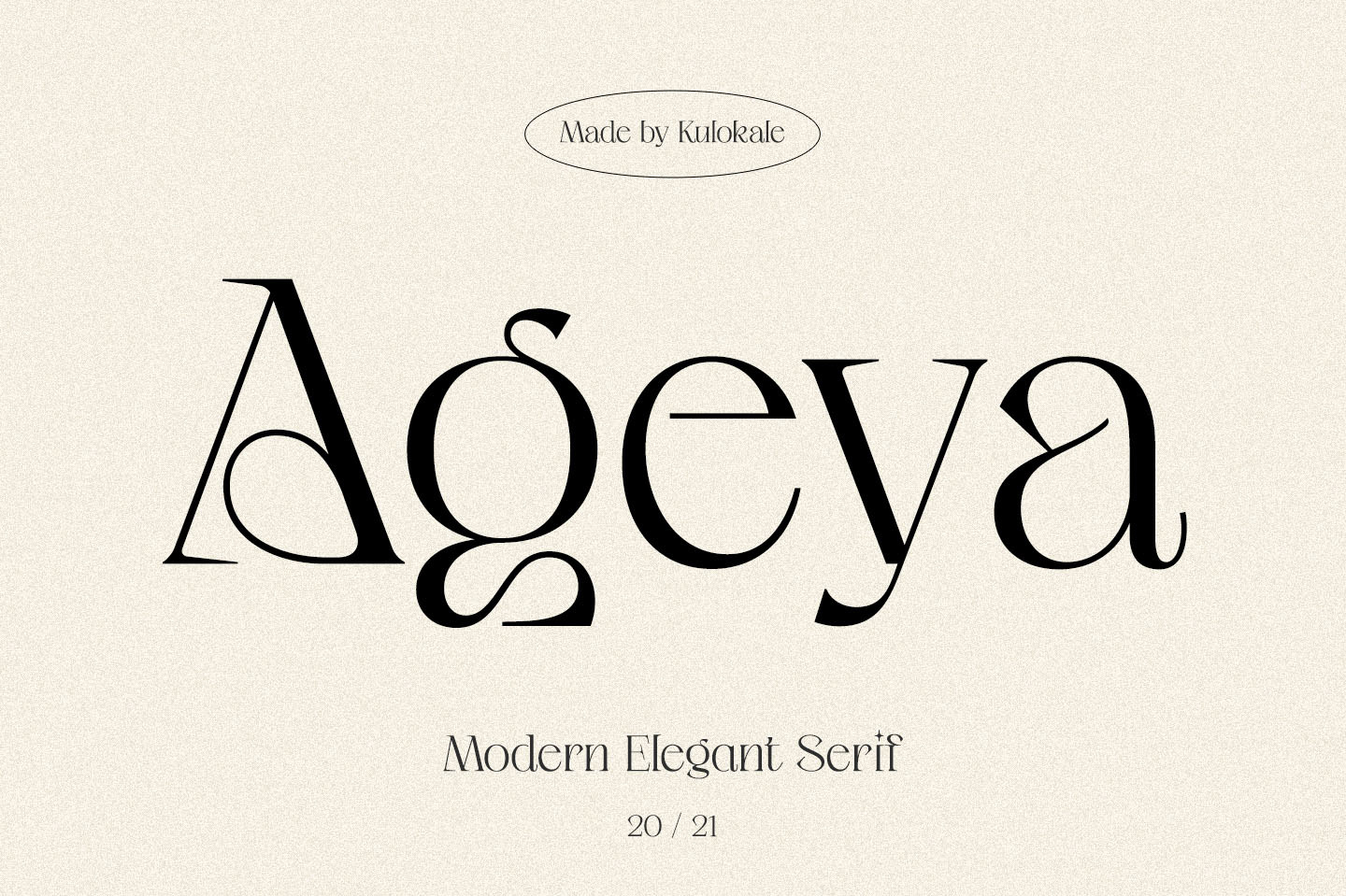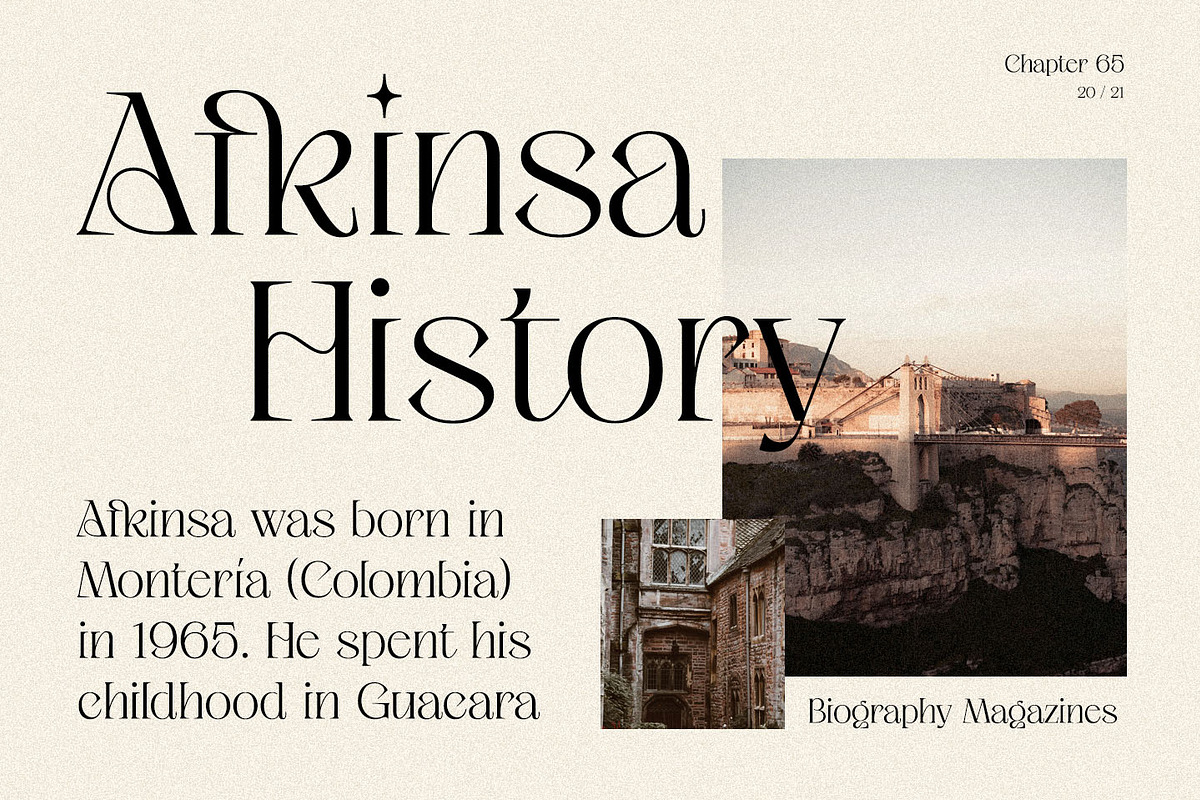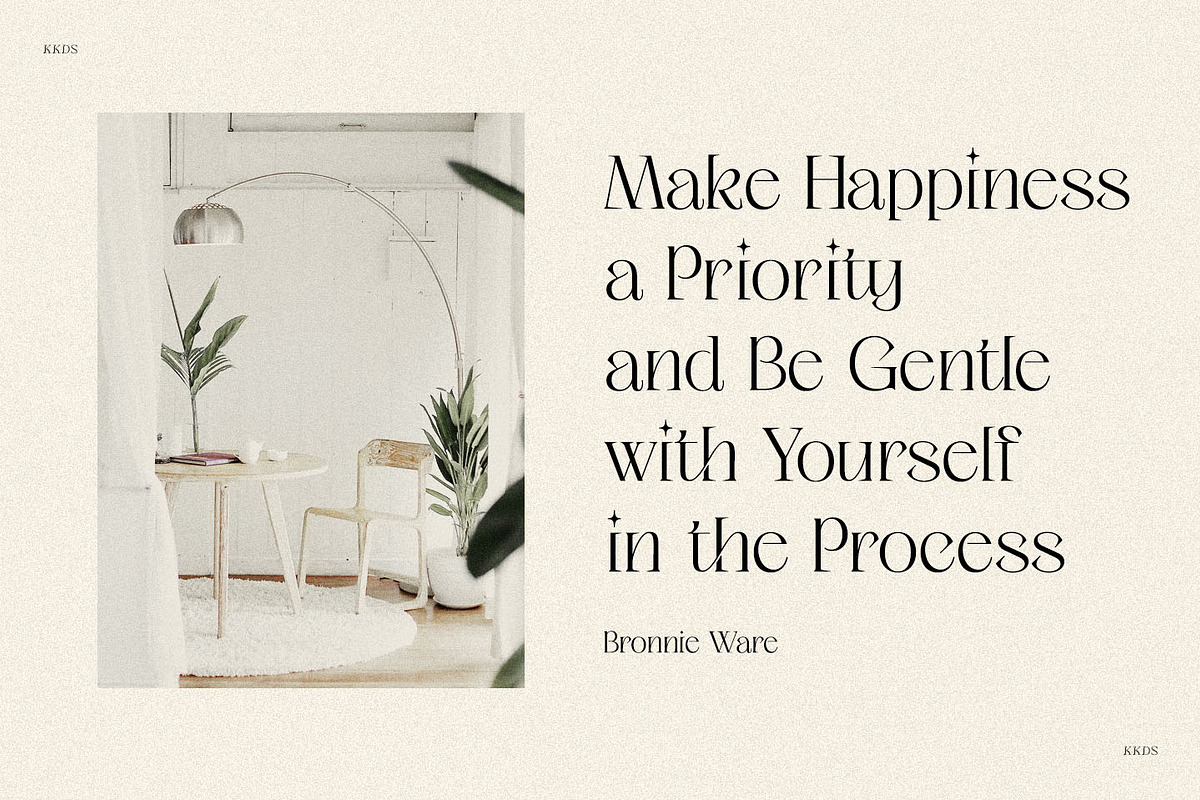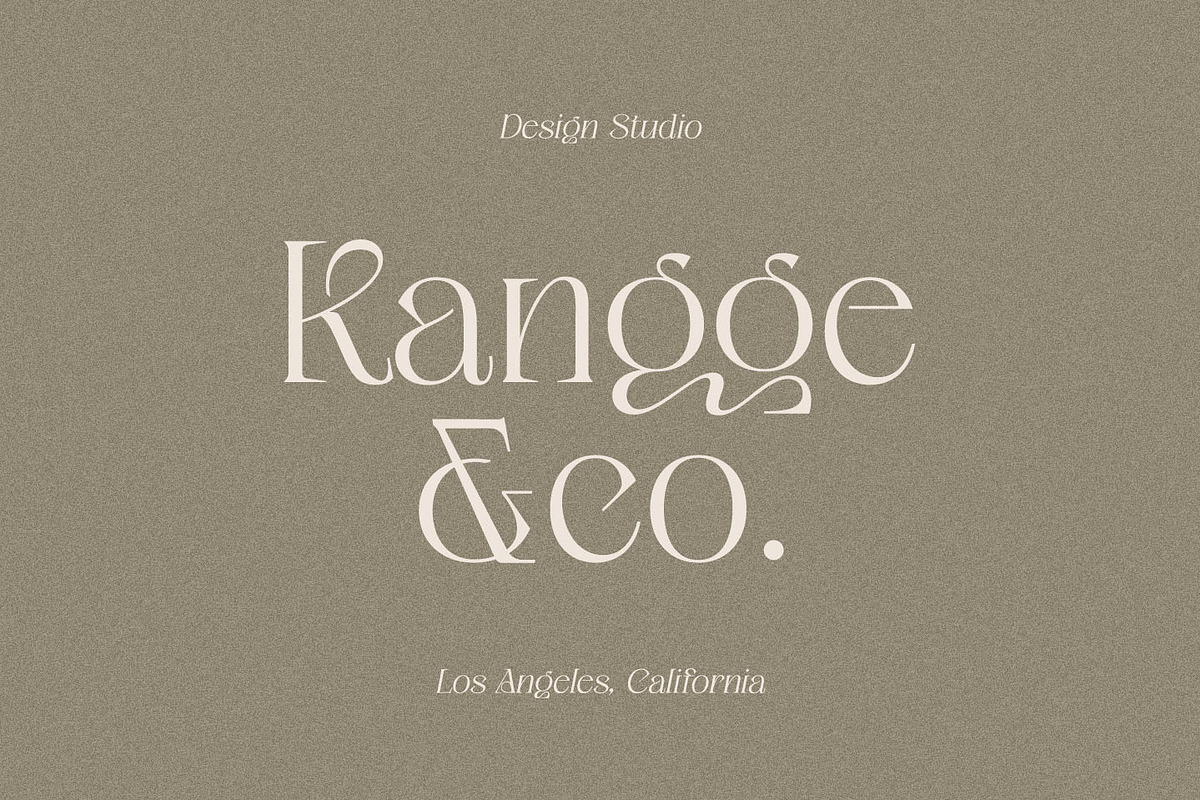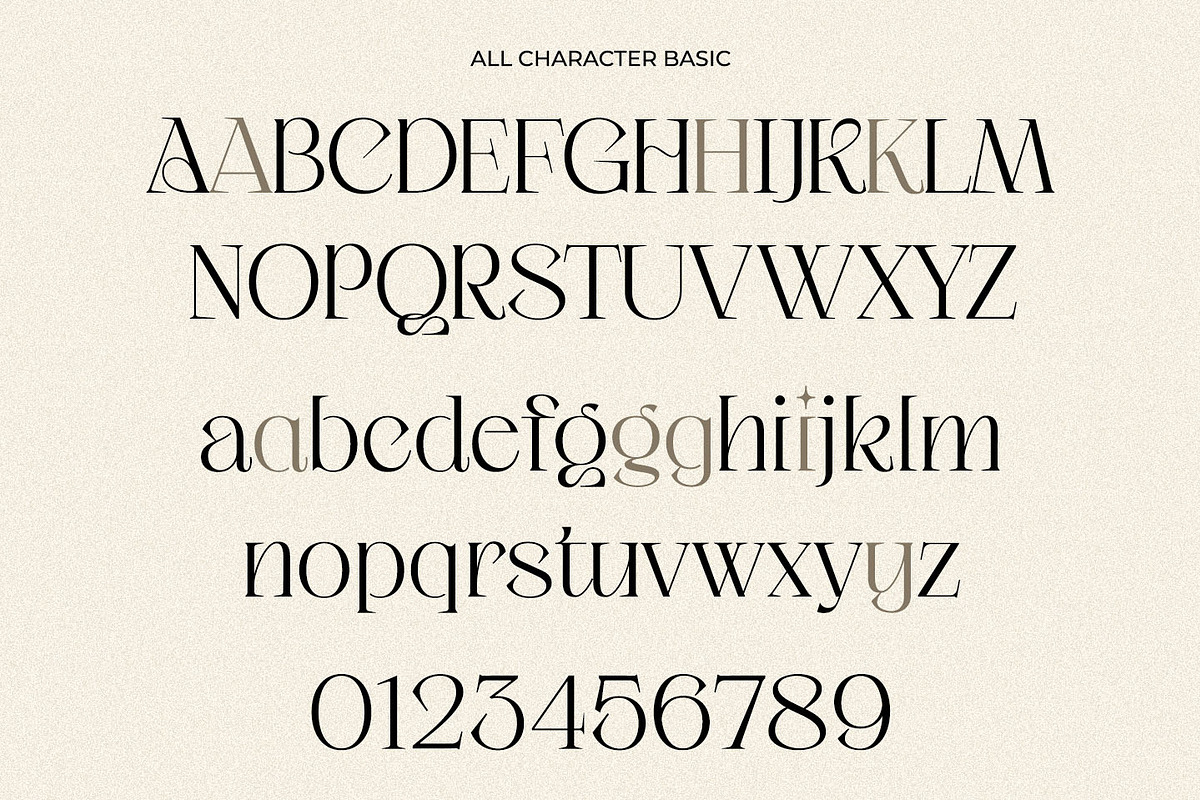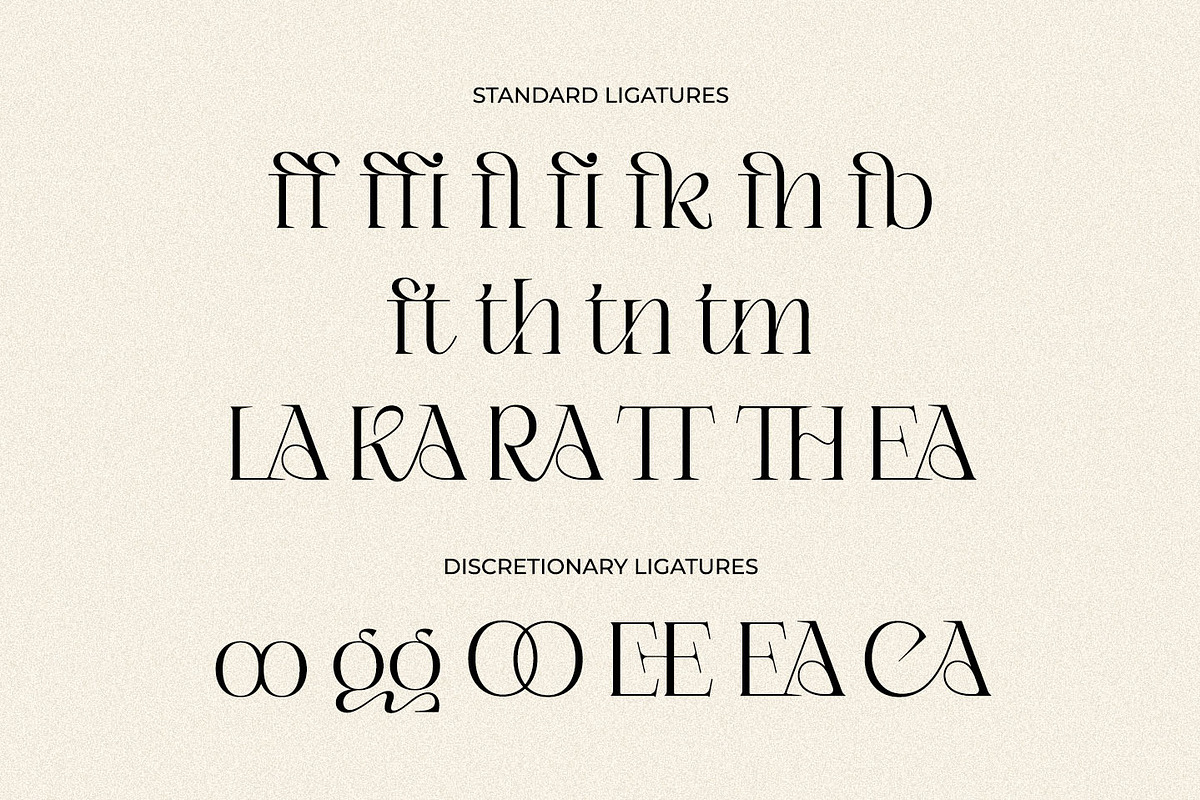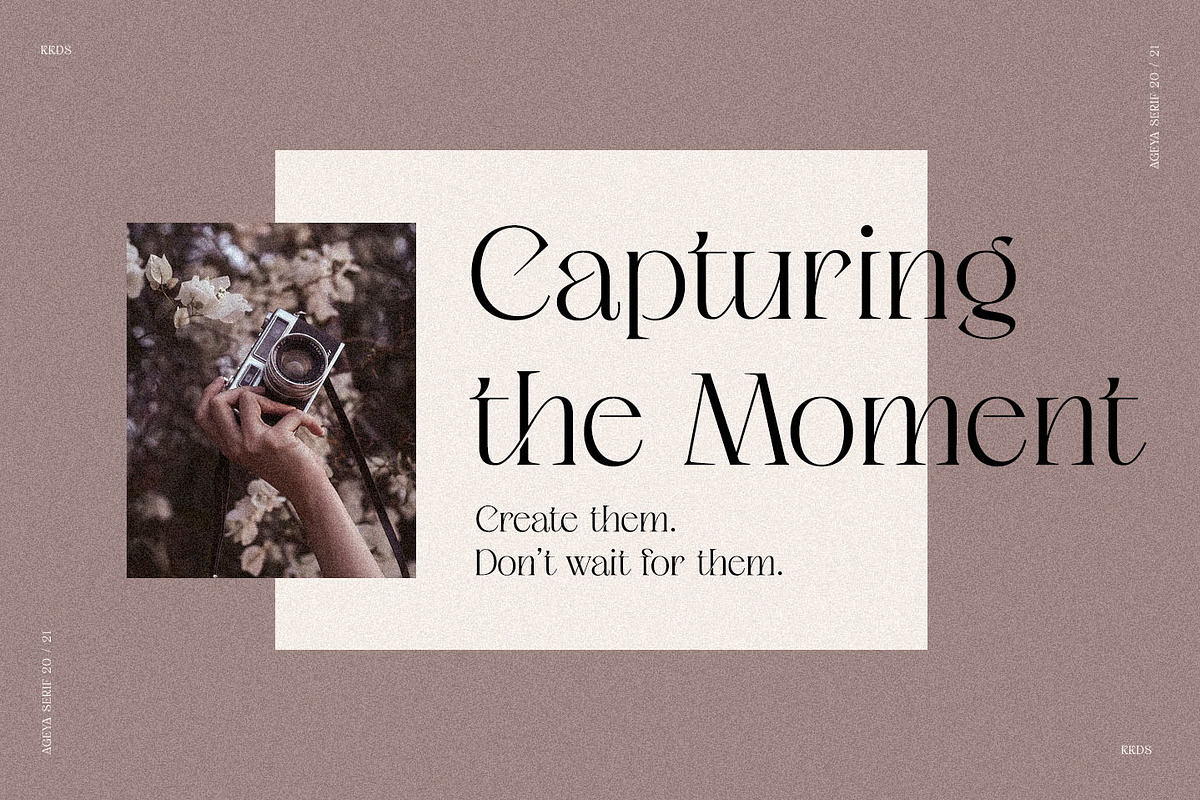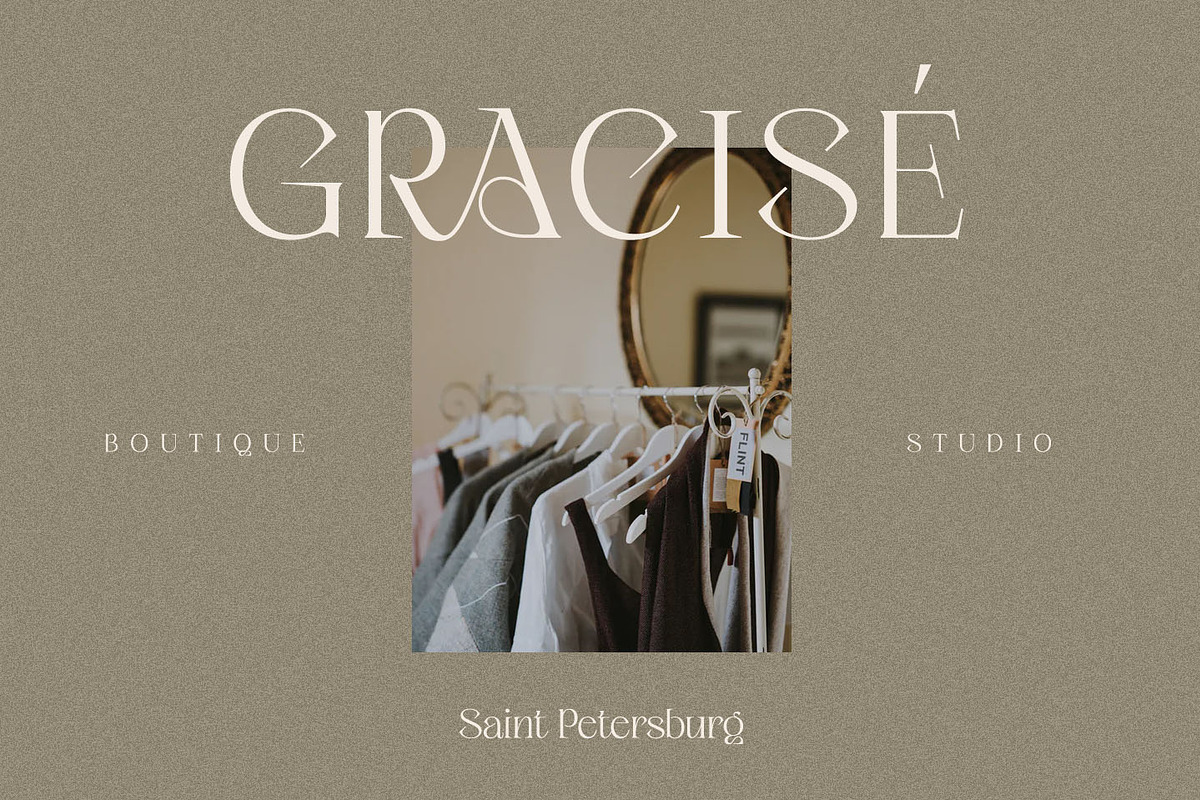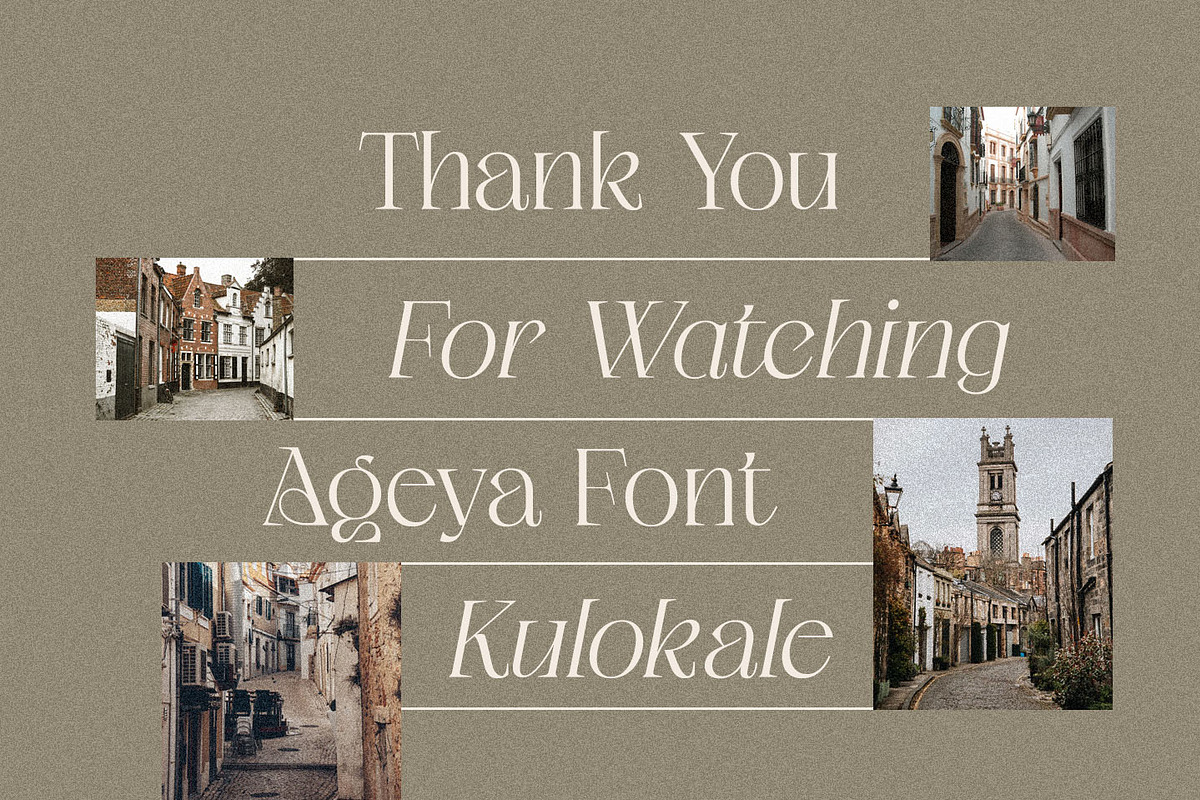
Ageya - Modern Elegant Serif Font
Ageya is a modern and elegant serif font. Ageya is well-suited for advertising, branding, logotypes, packaging, titles, headlines and editorial design. This font comes in two styles, Regular and Italic Version.